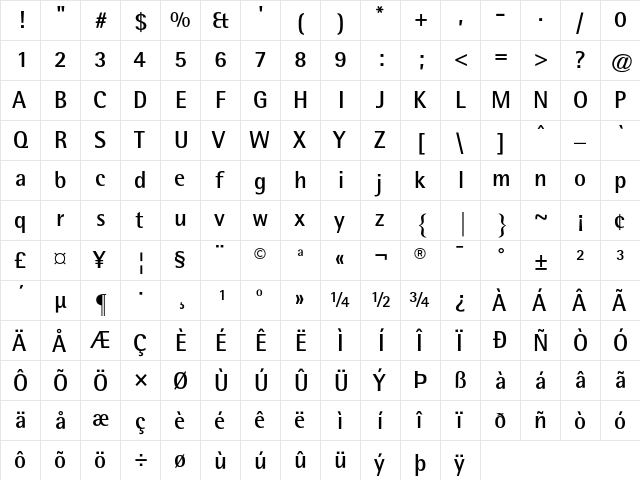
ATRotisSemisans Regular
Design Context for ATRotisSemisans Typeface
ATRotisSemisans offers clean, dependable letterforms without strong stylistic allegiance, making it a practical choice for designers who need flexibility.